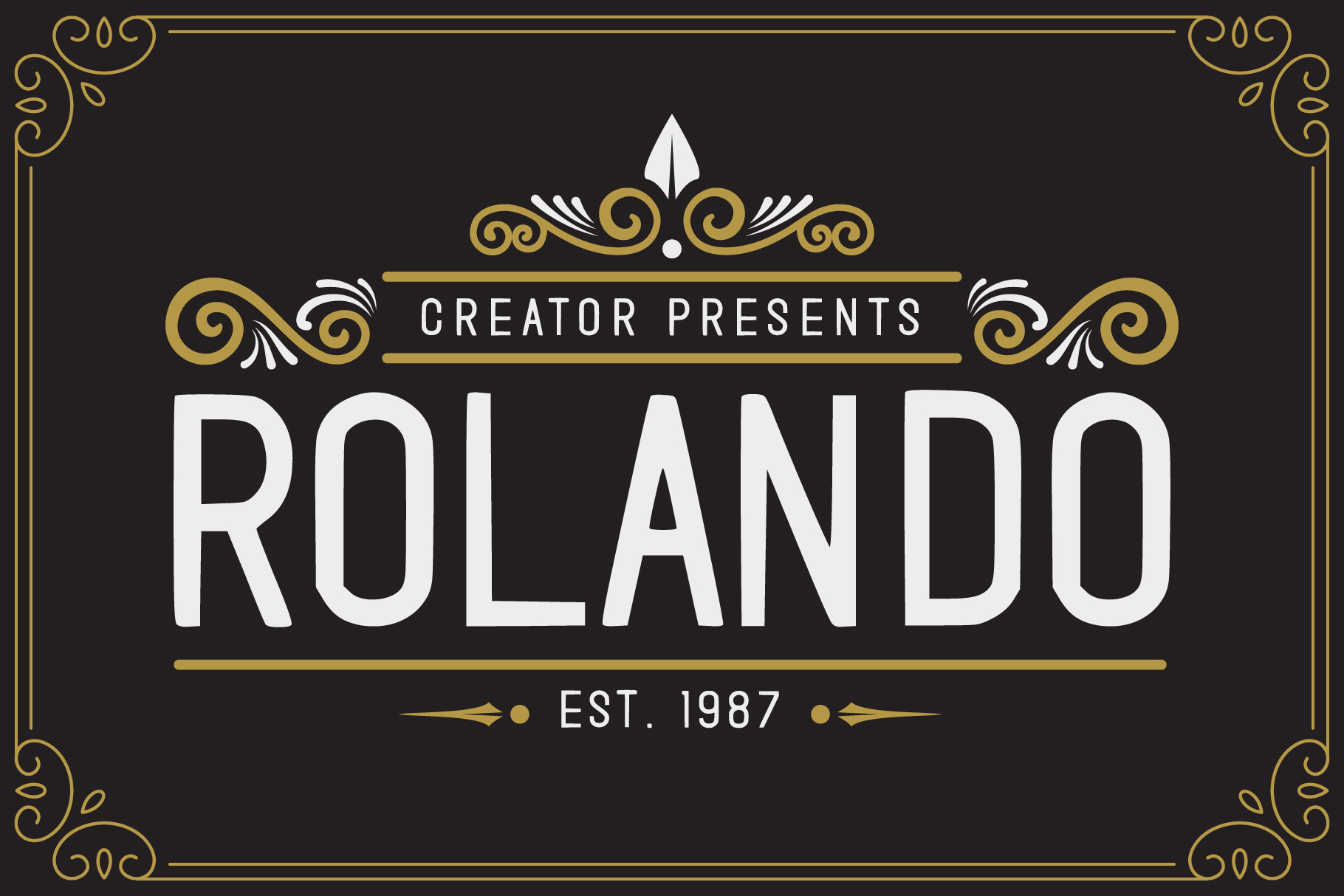
Rolando Vintage Font
Rolando Vintage Font, a brand new fonts with vintage look and style inspired from many vintage packaging and from typographic cover lettering. Perfect for designing cover, label, posters, logo, branding, etc who needs the vintage design structure.